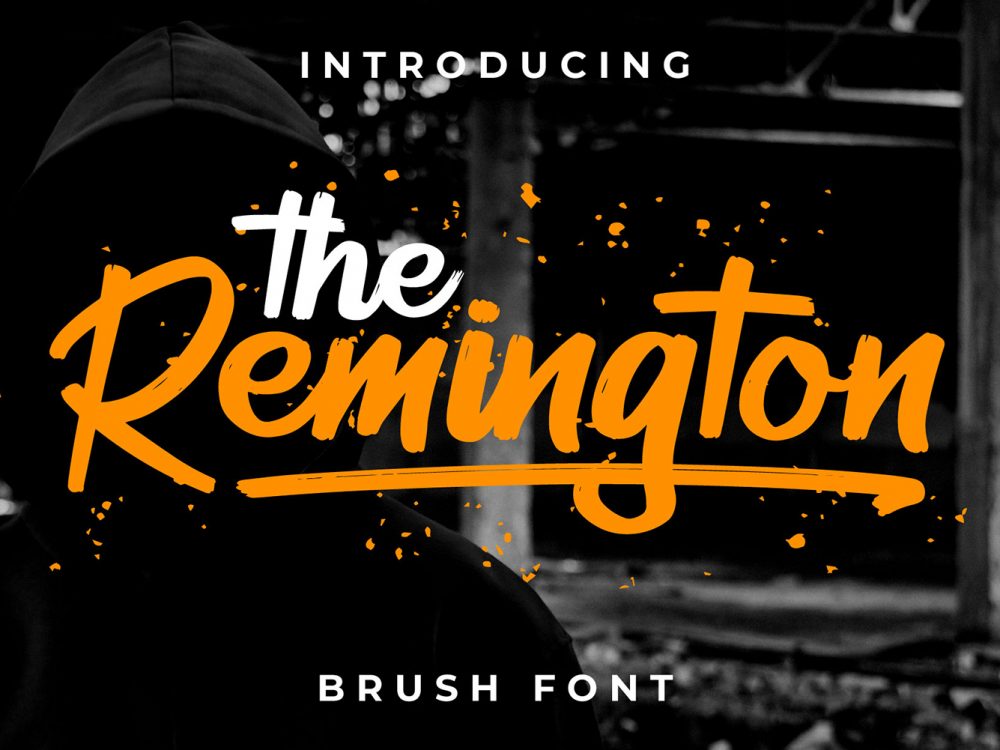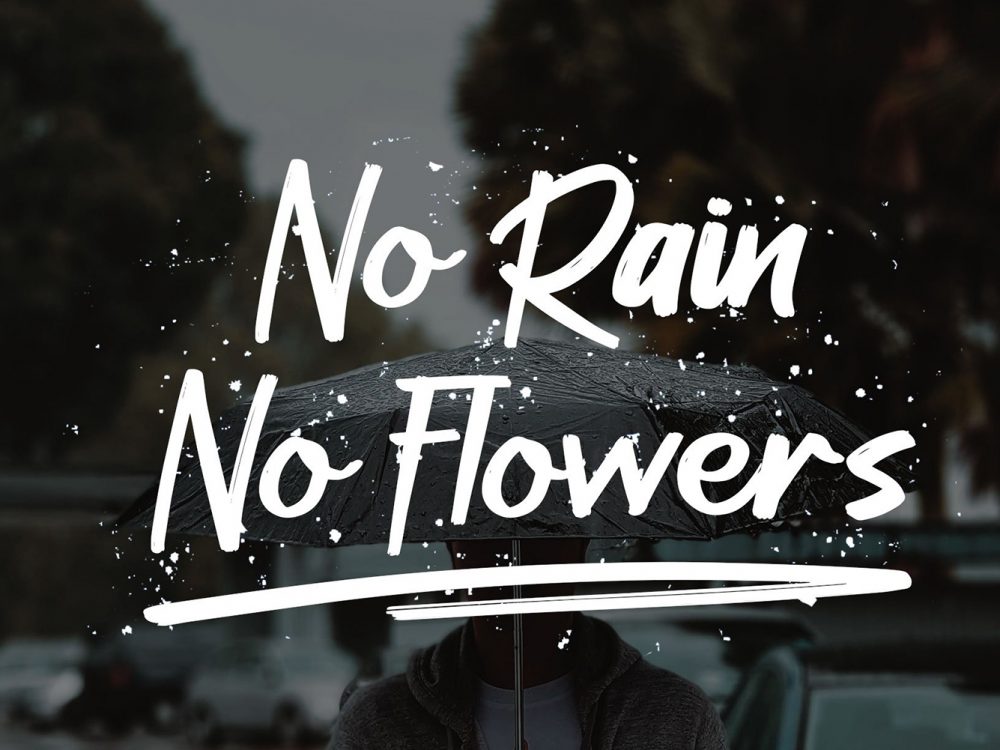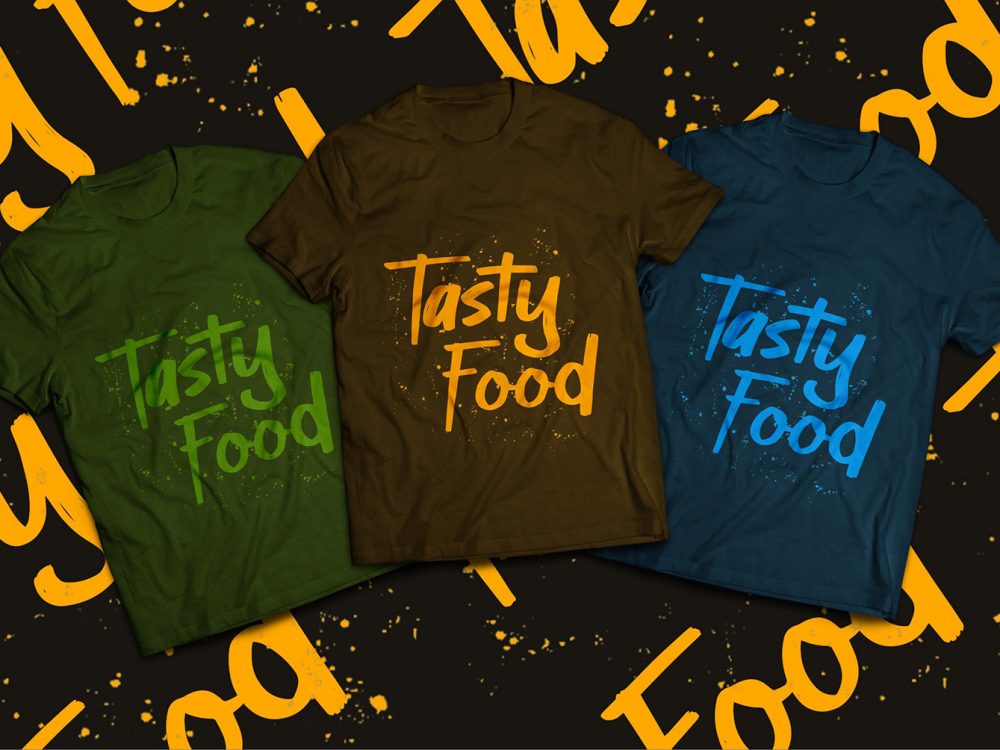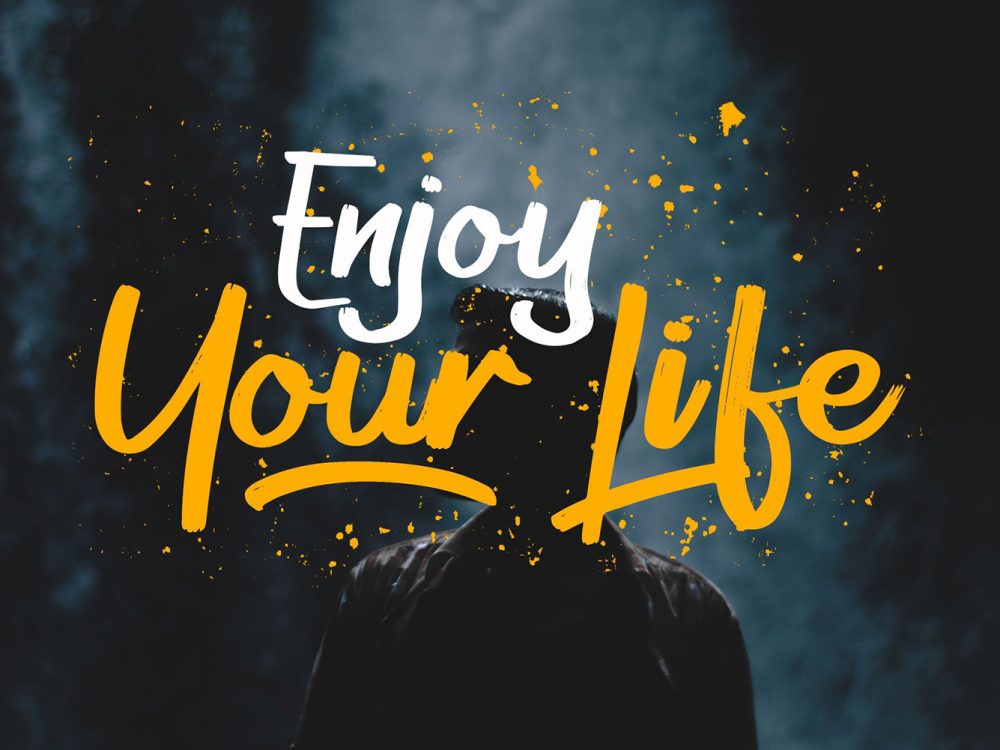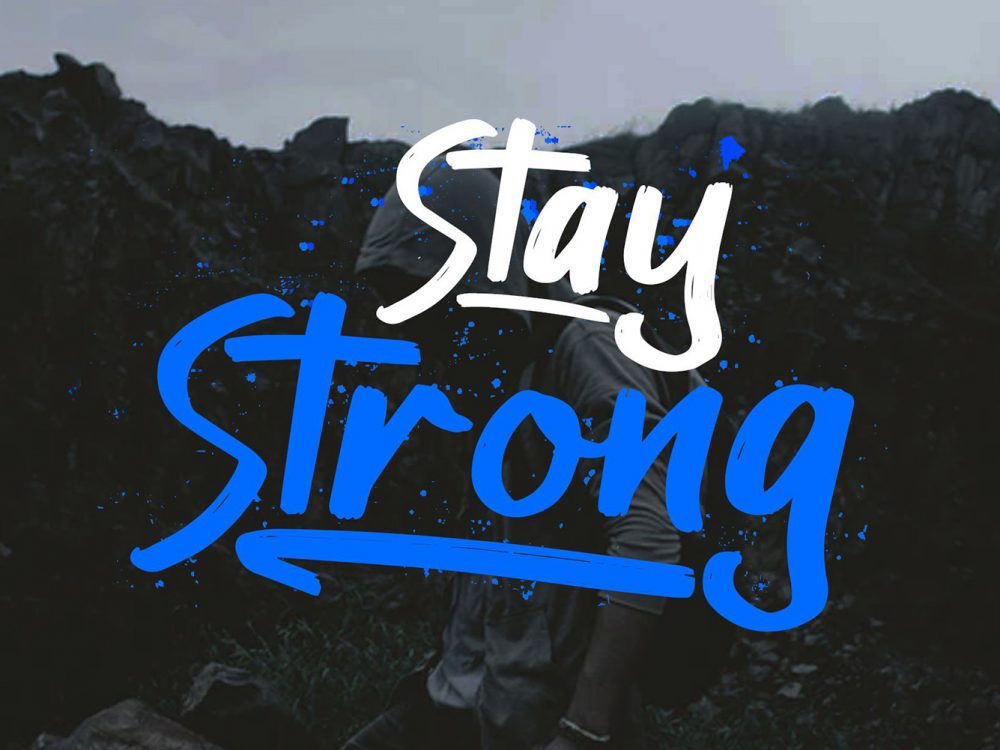
Remington Brush Font
Remington Brush Font is a stylish handwritten font that mimics a brush style and has an elegant style. This font will help you create unique design projects and improve your professional level. Use this font to create memorable posters, wedding invitations, cards, branding, flyers, and more. Improve the quality and increase the popularity of your design projects by using this font. If you like it don’t forget to check out the full version.